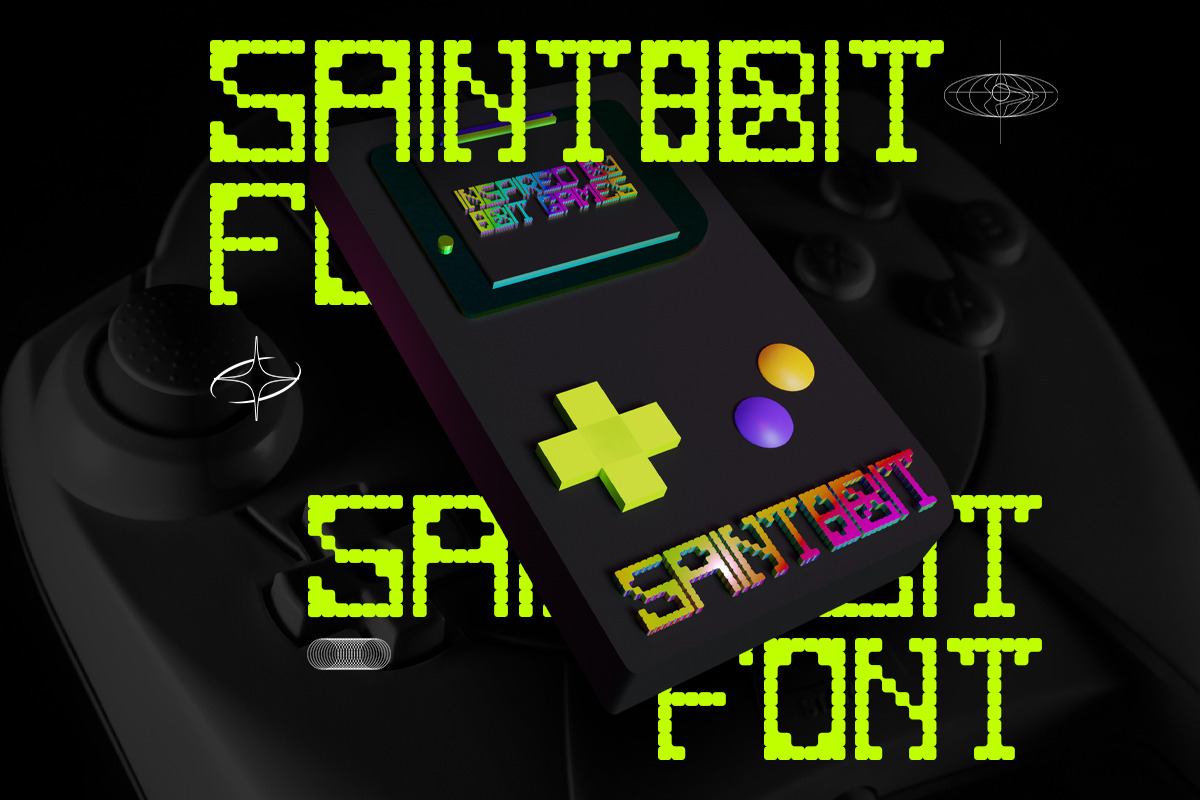
SAINT8BIT - FONT Free Download
SAINT8BIT Font Free Download
SAINT8BIT Font Free Download is a retro pixel-style typeface that captures the nostalgic charm of classic video games. With its crisp, grid-based characters and arcade-inspired design, SAINT8BIT is perfect for game titles, pixel art projects, YouTube thumbnails, Twitch overlays, event posters, and any design that calls for a bold, digital-era aesthetic.
This font brings the spirit of 8-bit gaming to life, offering excellent readability while staying true to that blocky, vintage vibe. Whether you're designing for a gaming community or creating retro-themed content, SAINT8BIT adds an unmistakable throwback feel.